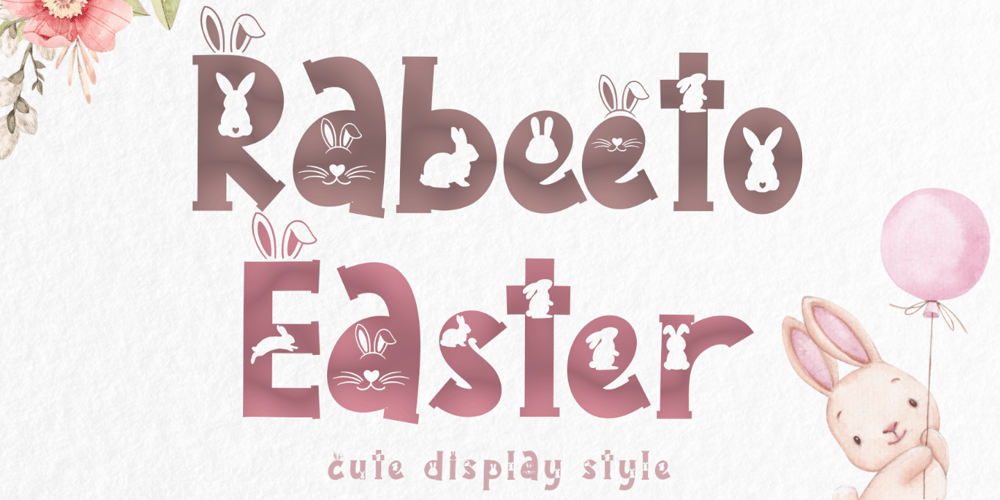
Rabeeto Easter
Rabeeto Easter font
Rabeeto Easter Font Family was designed by Isroni Yoga Prasetya and published by Yoga Letter. Rabeeto Easter contains 1 styles and family package options. “Rabeeto Easter” is a unique and cute display font. This font is decorated with cute rabbits, so it looks attractive. Equipped with uppercase letters, lowercase letters, numerals, punctuation, ligatures, and multilingual support. Very suitable for Easter, spring, summer, invitations, comics, logos, banners, posters, prints, branding, stickers, and others.